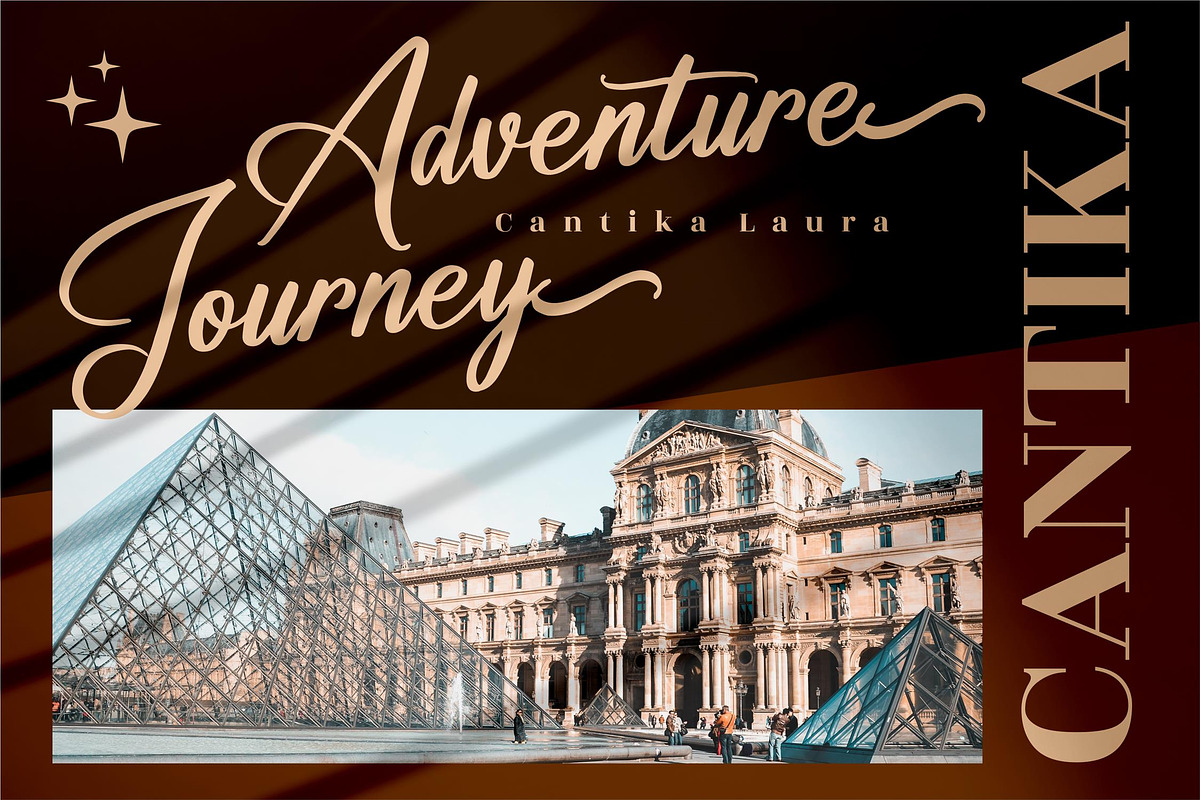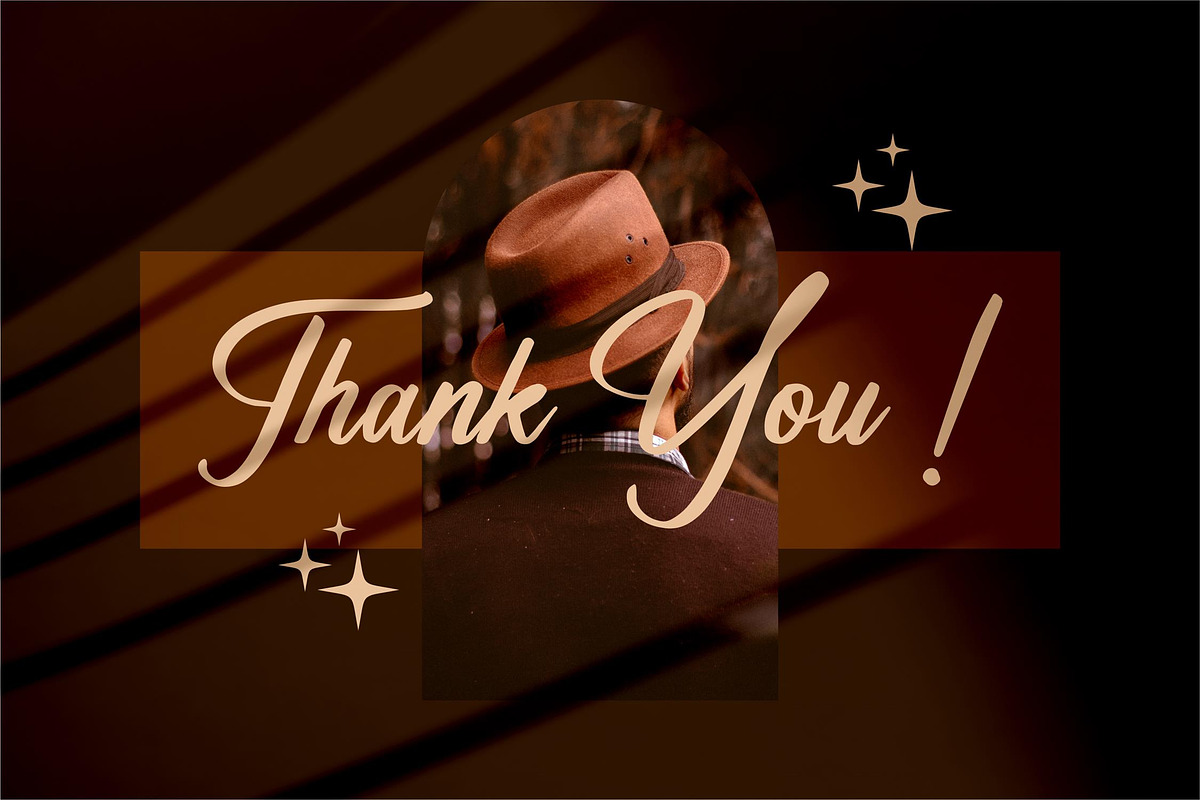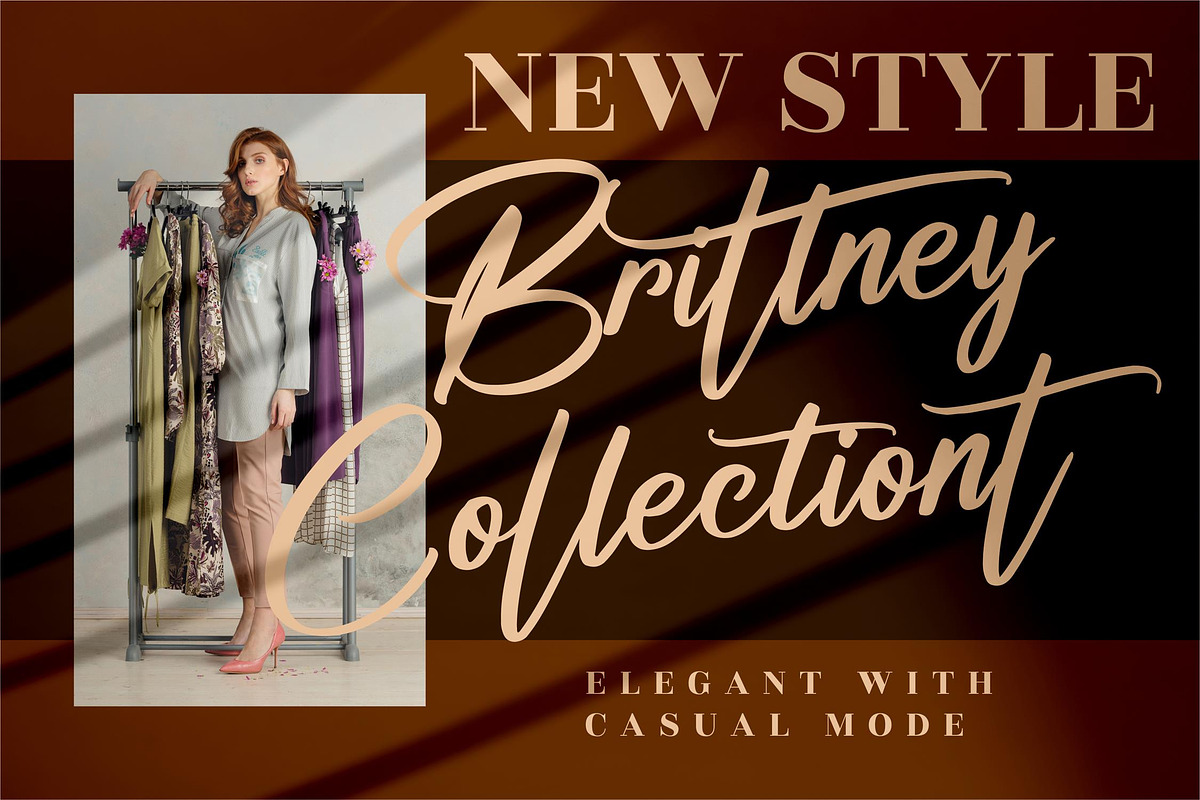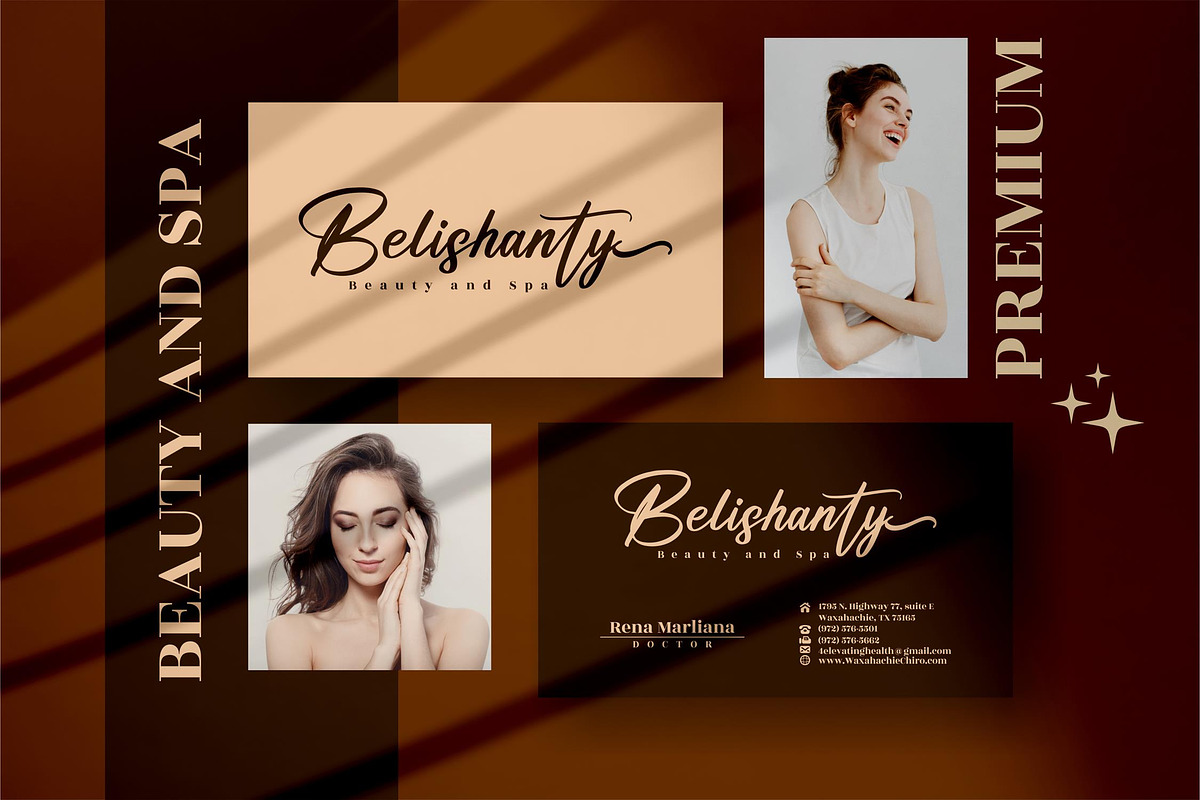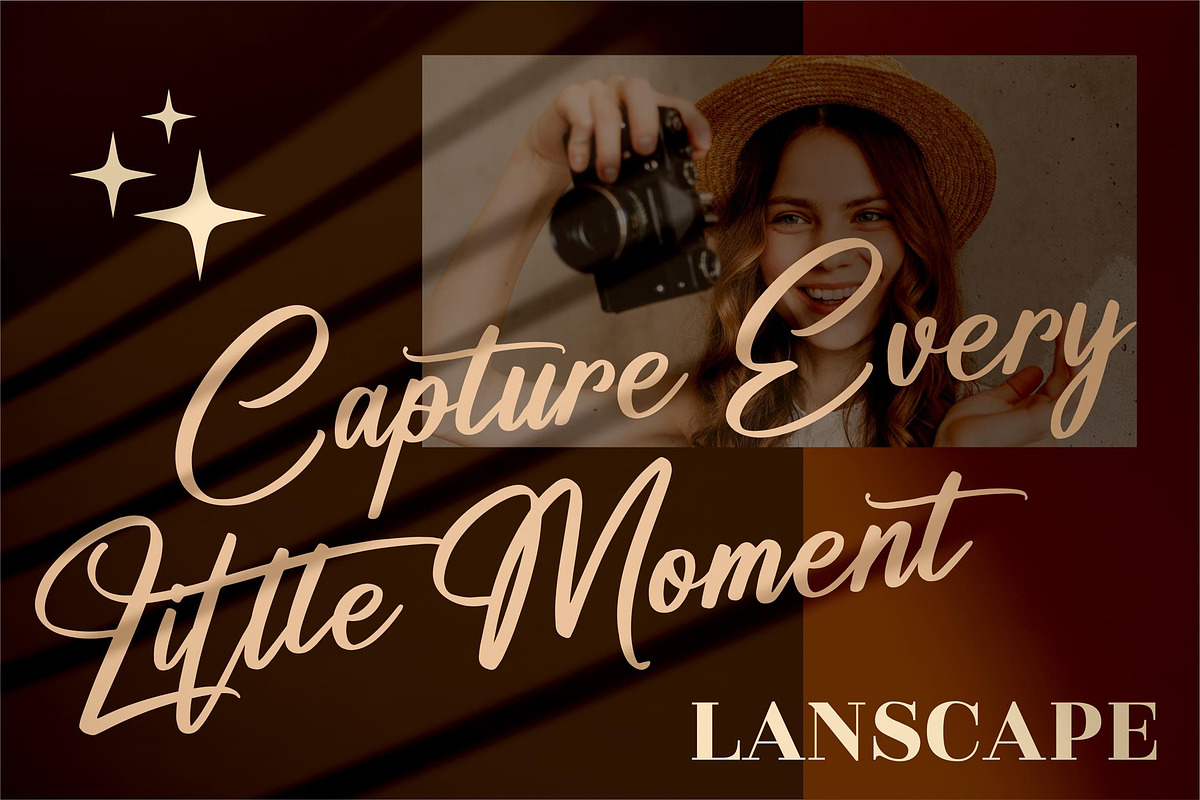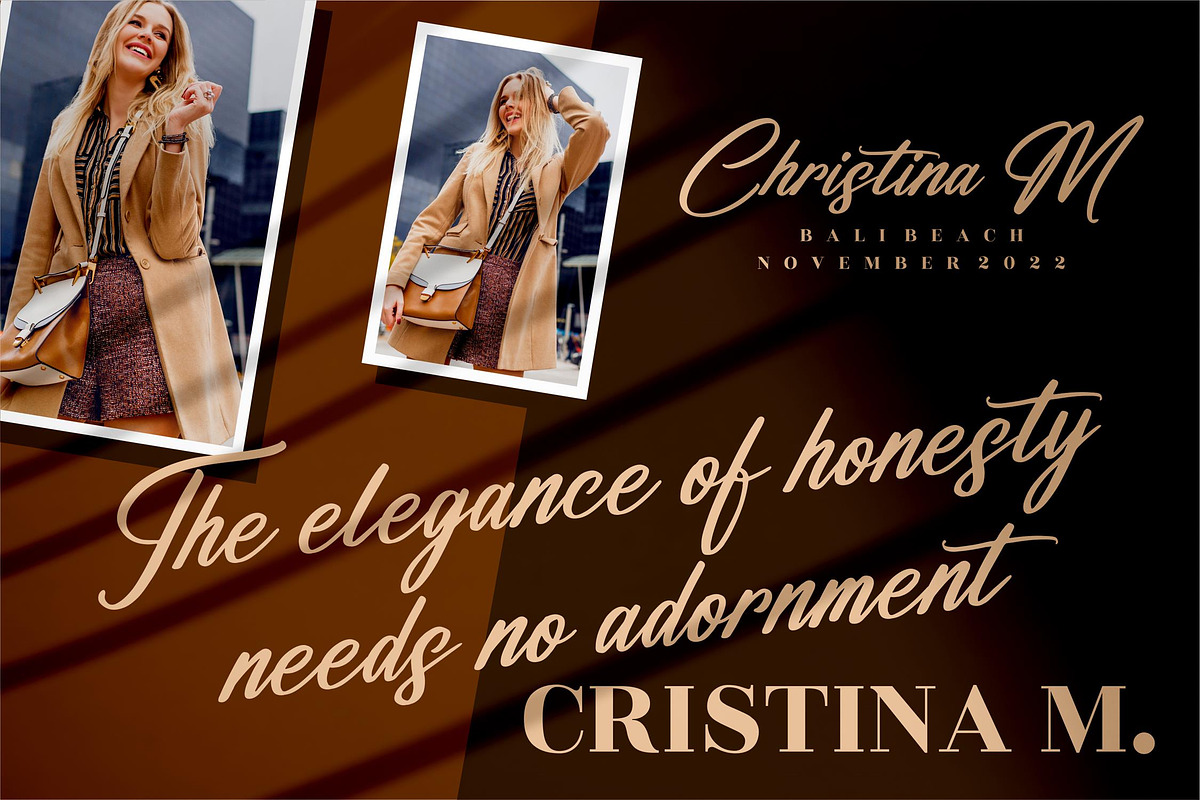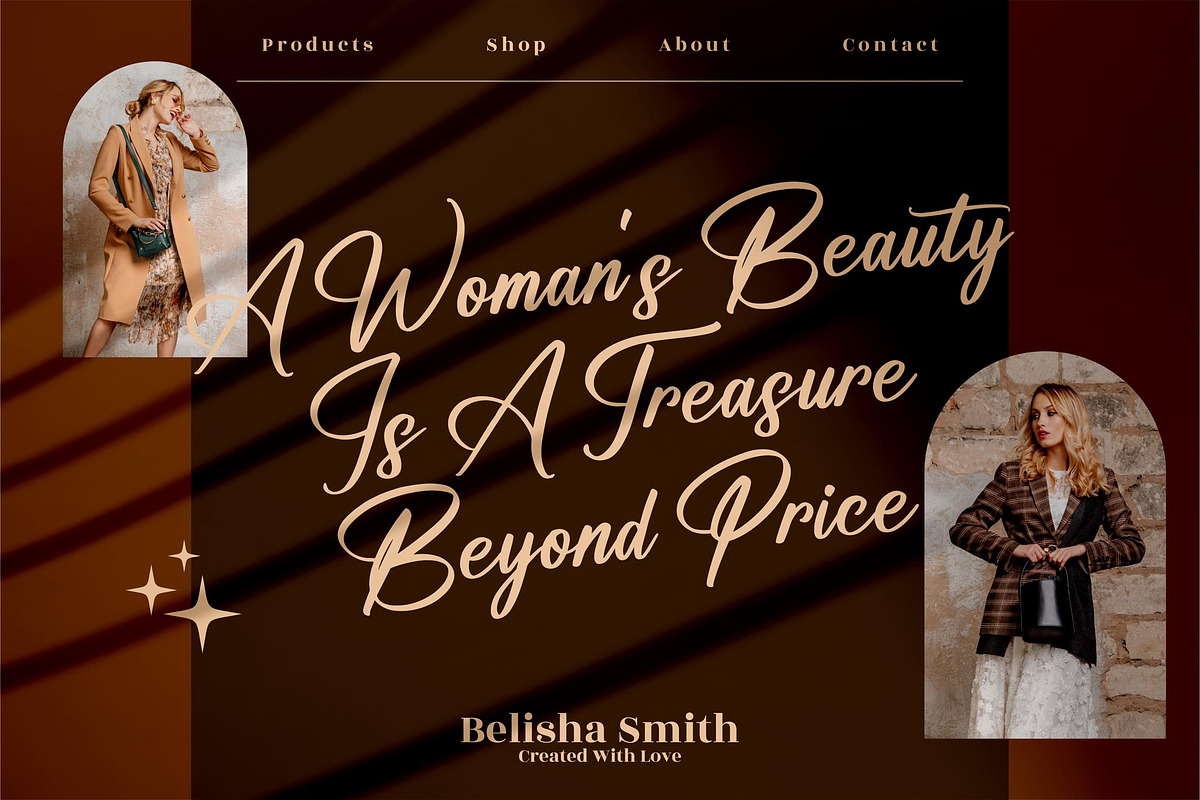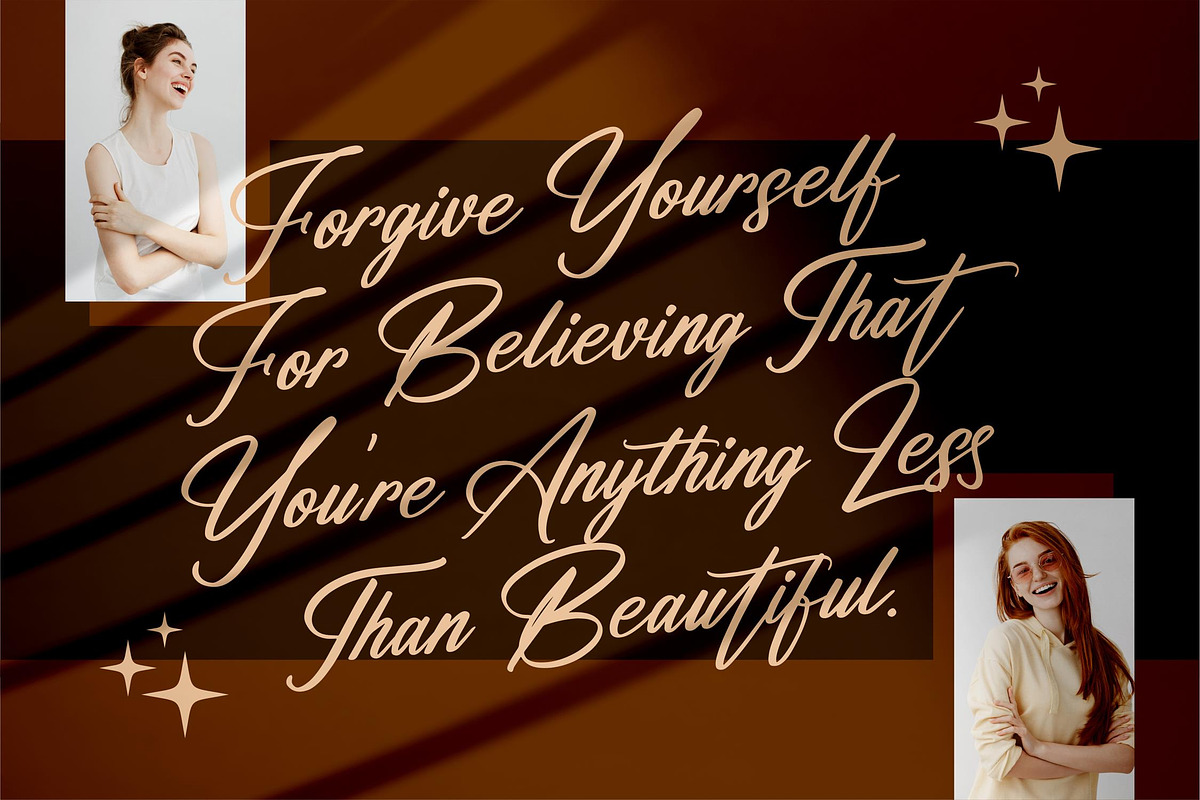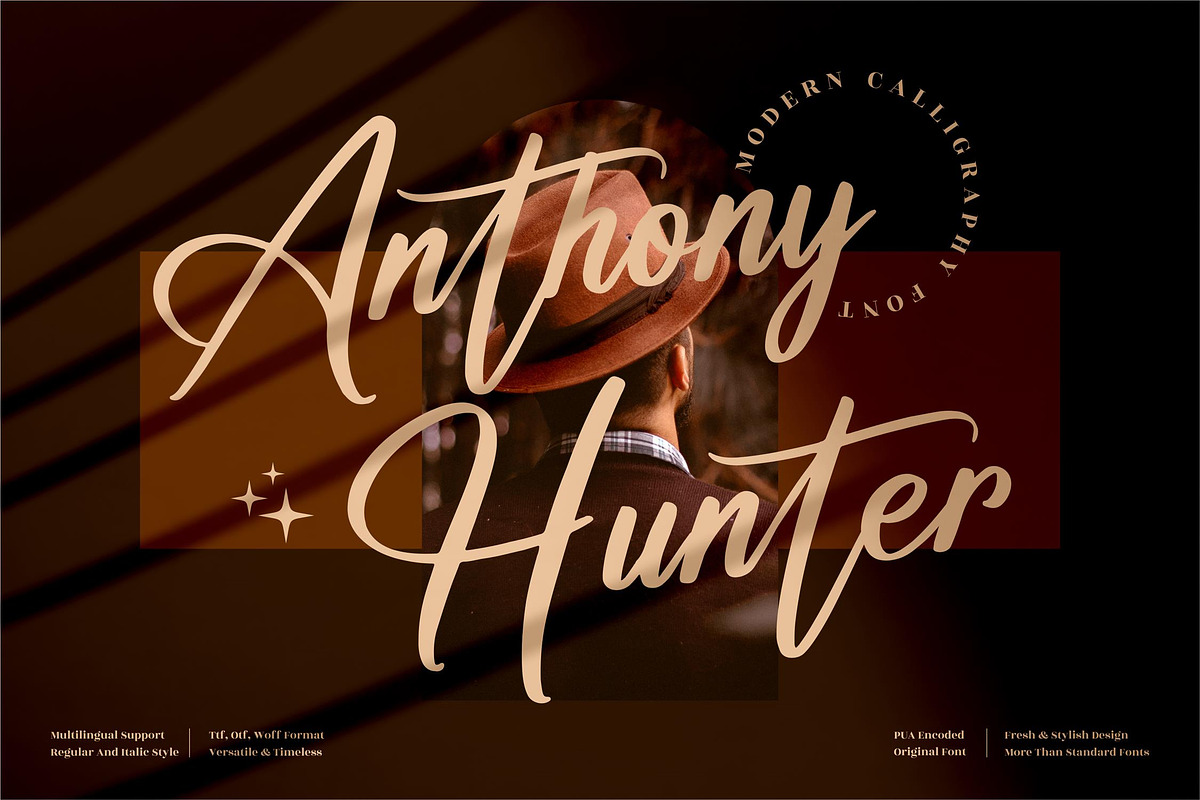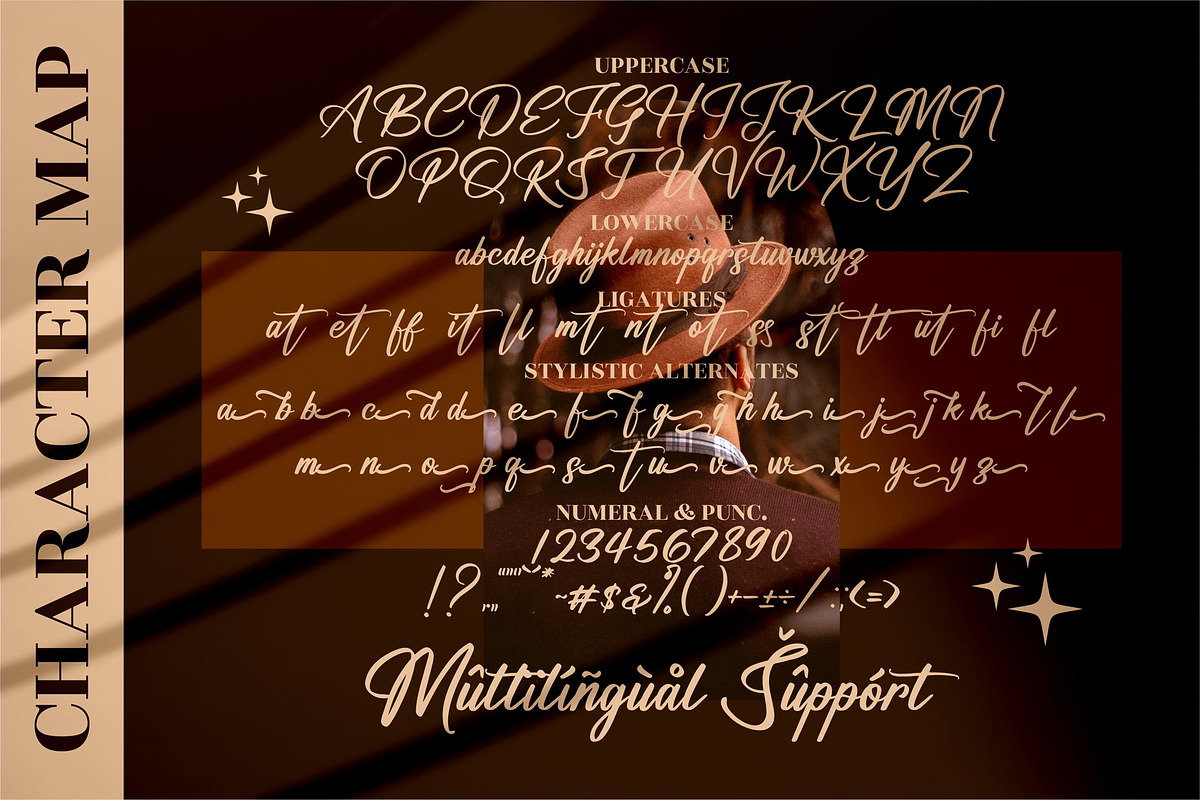
Anthony Hunter Modern Calligraphy
Anthony Hunter – Modern Calligraphy Font, from Perspectype Studio, is a premium signature font, suitable for any projects such as: logos, branding projects, homeware designs, product packaging, mugs, quotes, posters, shopping bags, t-shirts, book covers, name card, invitation cards, greeting cards, label, photography, watermark, special events, and all your other luxury projects that need a premium signature taste.